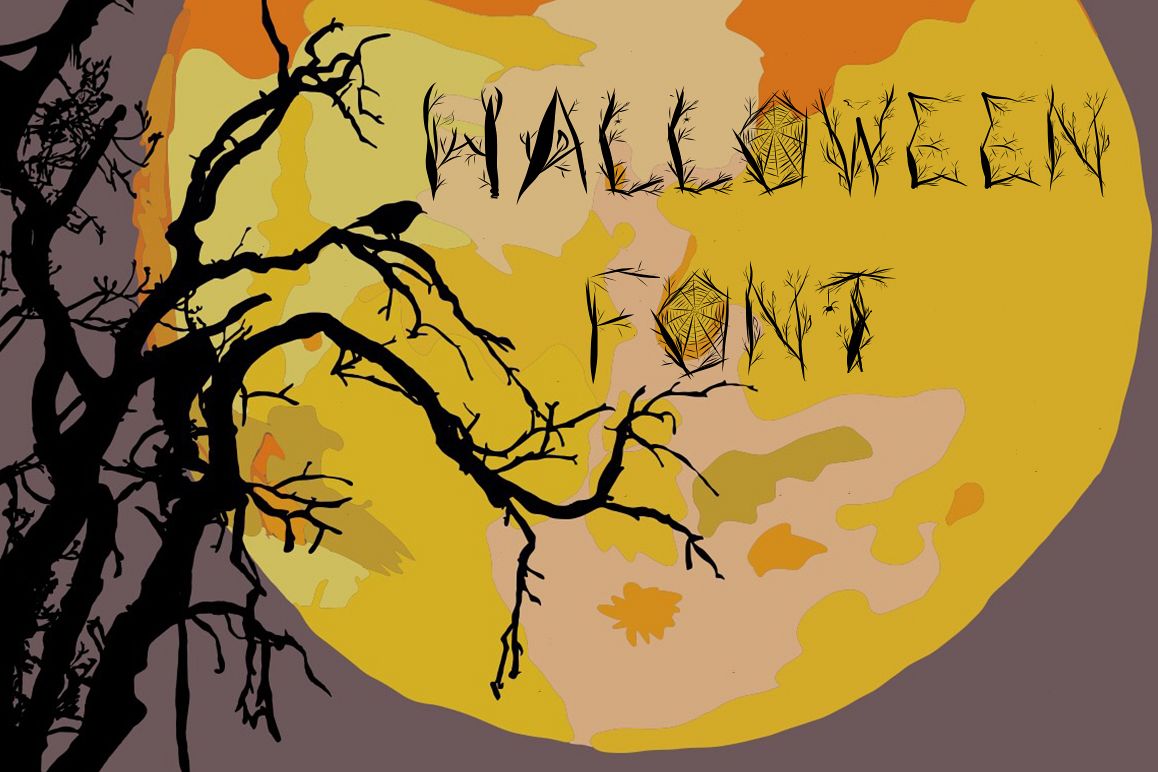
Halloween woody alphabet
I'm glad to introduce you a wooden alphabet in the style of Halloween))))) And to him 2 images drawn by hand. You are getting: